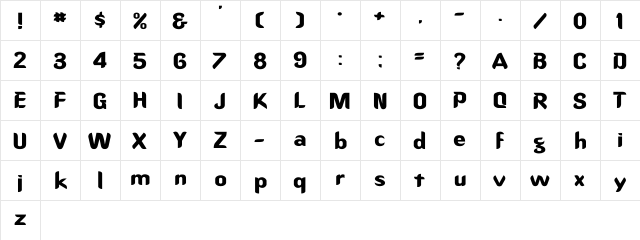
OregonDry Wd Regular
Design Context for OregonDry Wd Typeface
OregonDry Wd is a composed and adaptable typeface that performs quietly and consistently across a wide range of design contexts.